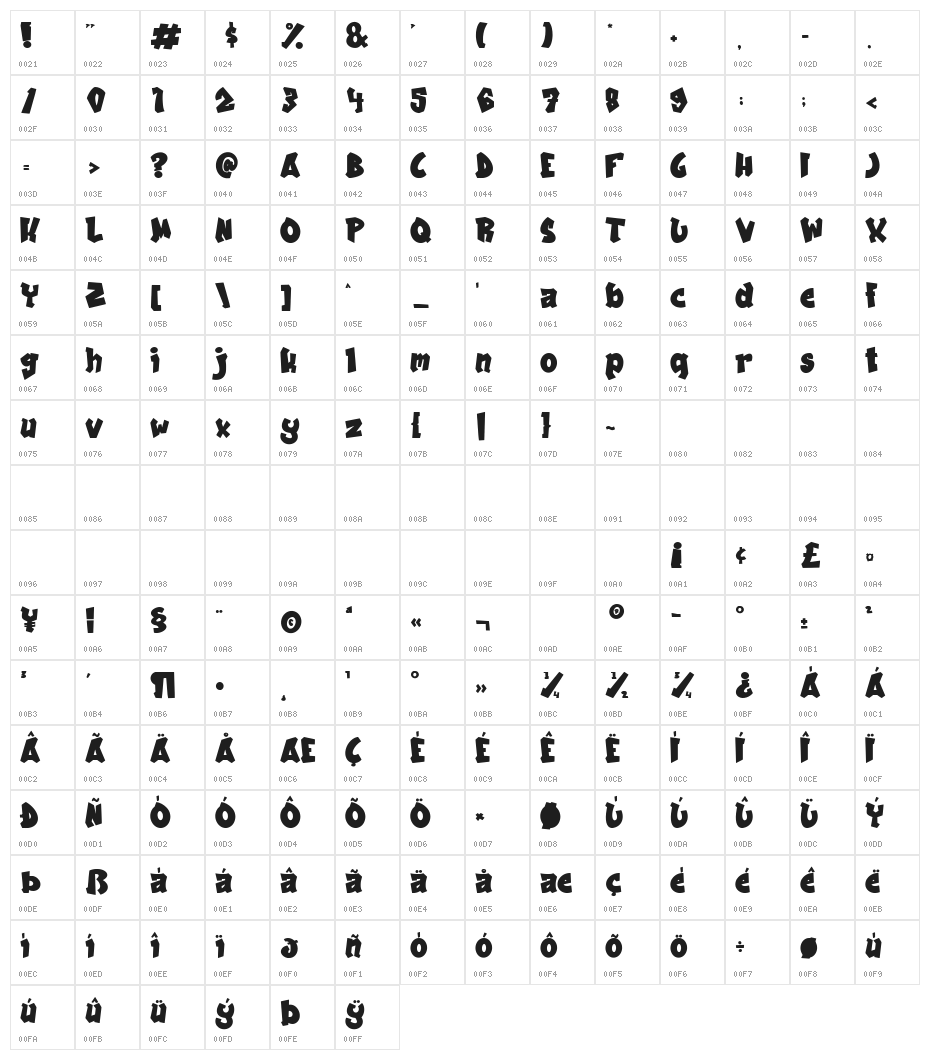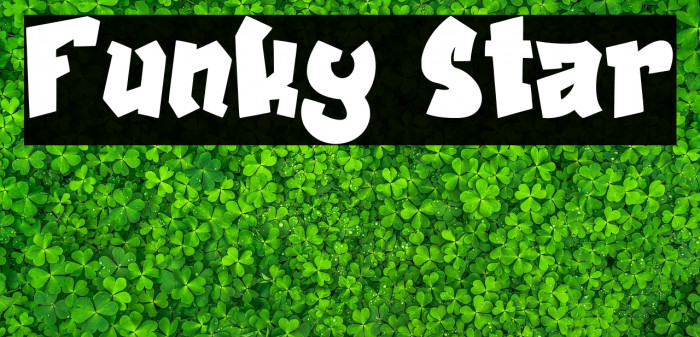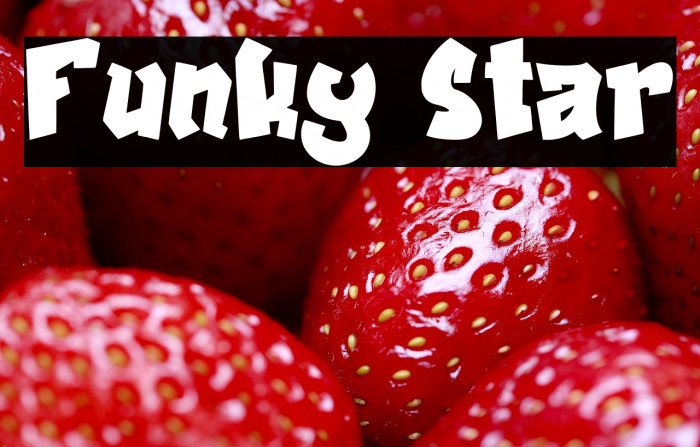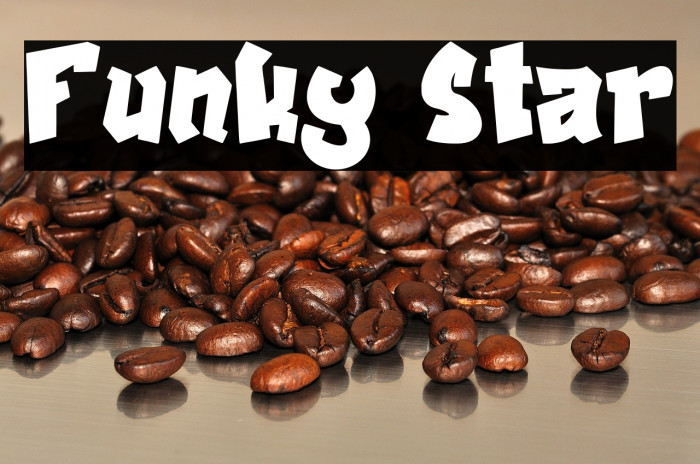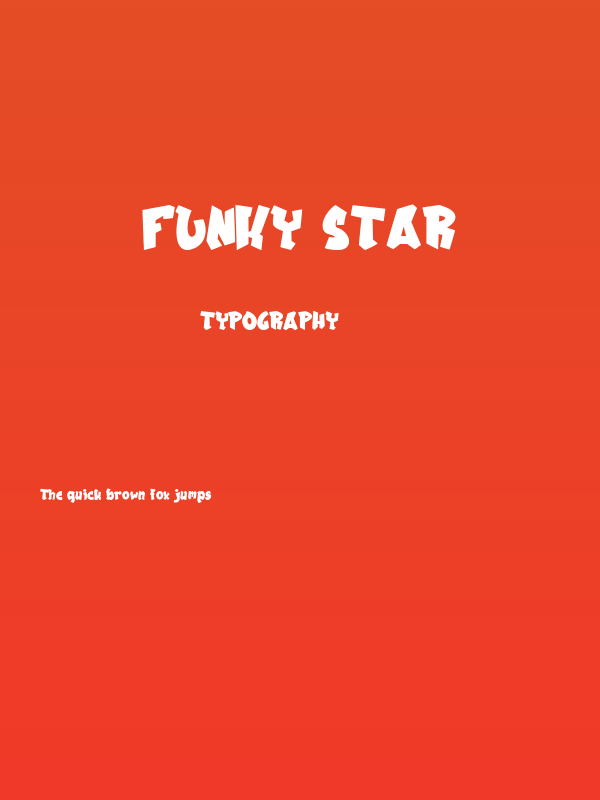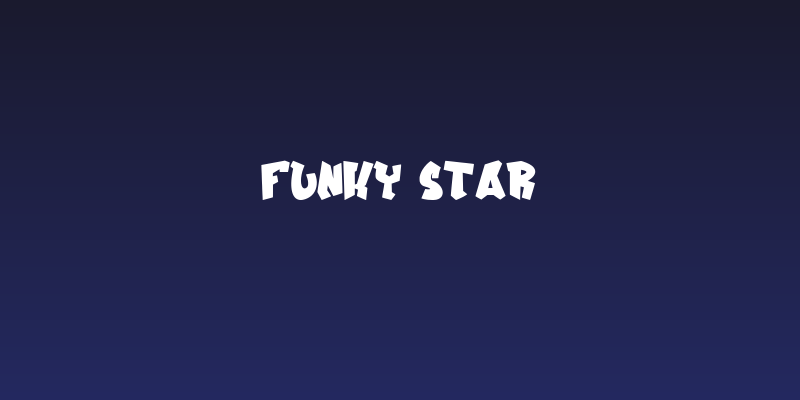
Funky Star Font
Funky Star Description
This font features a bold and playful design with exaggerated, irregular shapes that give it a dynamic and energetic feel. The characters are heavily stylized, with sharp angles and varying stroke widths that create a sense of movement and excitement. The uppercase and lowercase letters maintain a consistent style, while the numbers and special characters are equally expressive, making the font suitable for attention-grabbing designs. Its unique appearance makes it ideal for projects that require a fun and unconventional look.
| Proposed Projects | Ideal for posters, children's book covers, party invitations, and any design needing a fun, eye-catching style. |